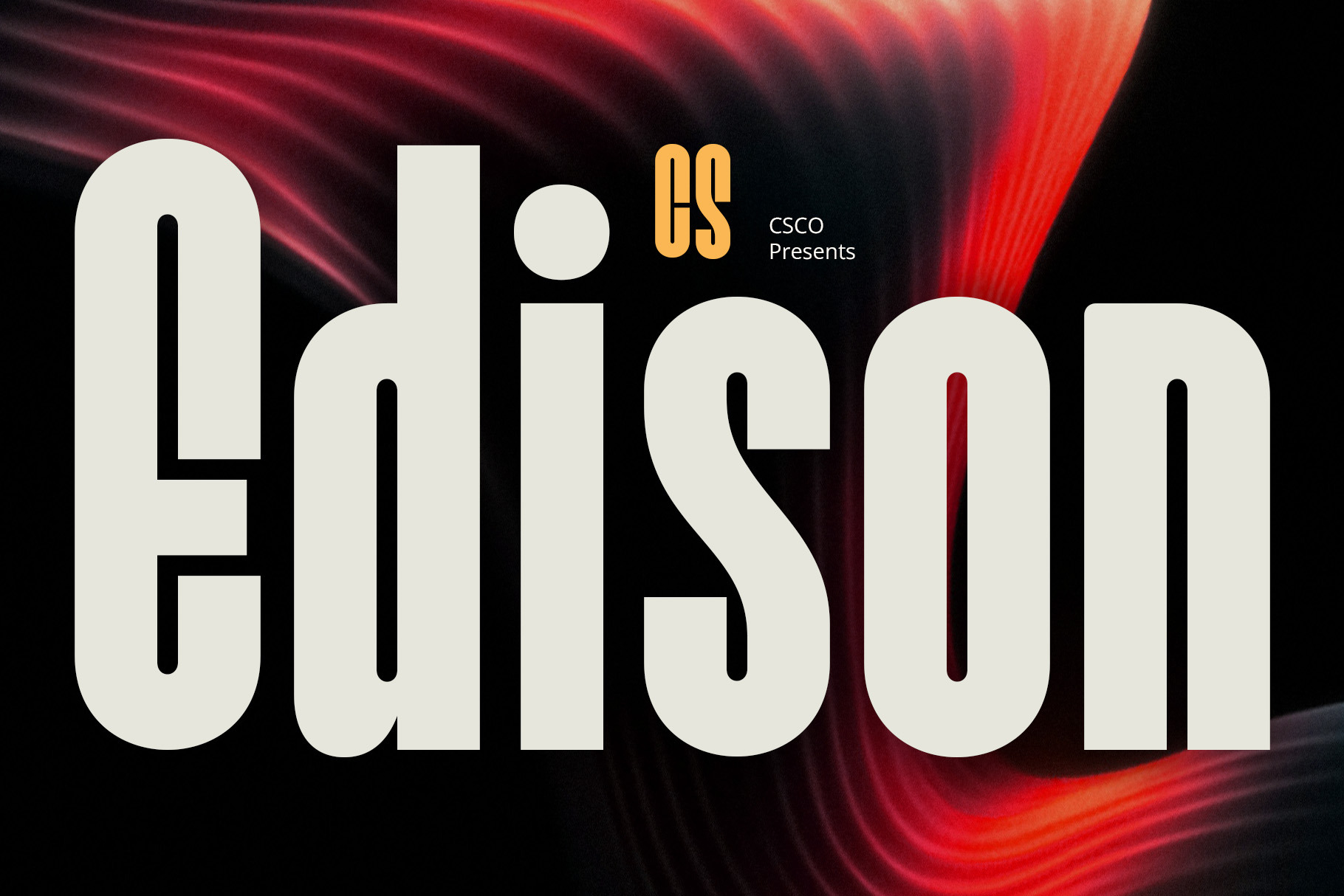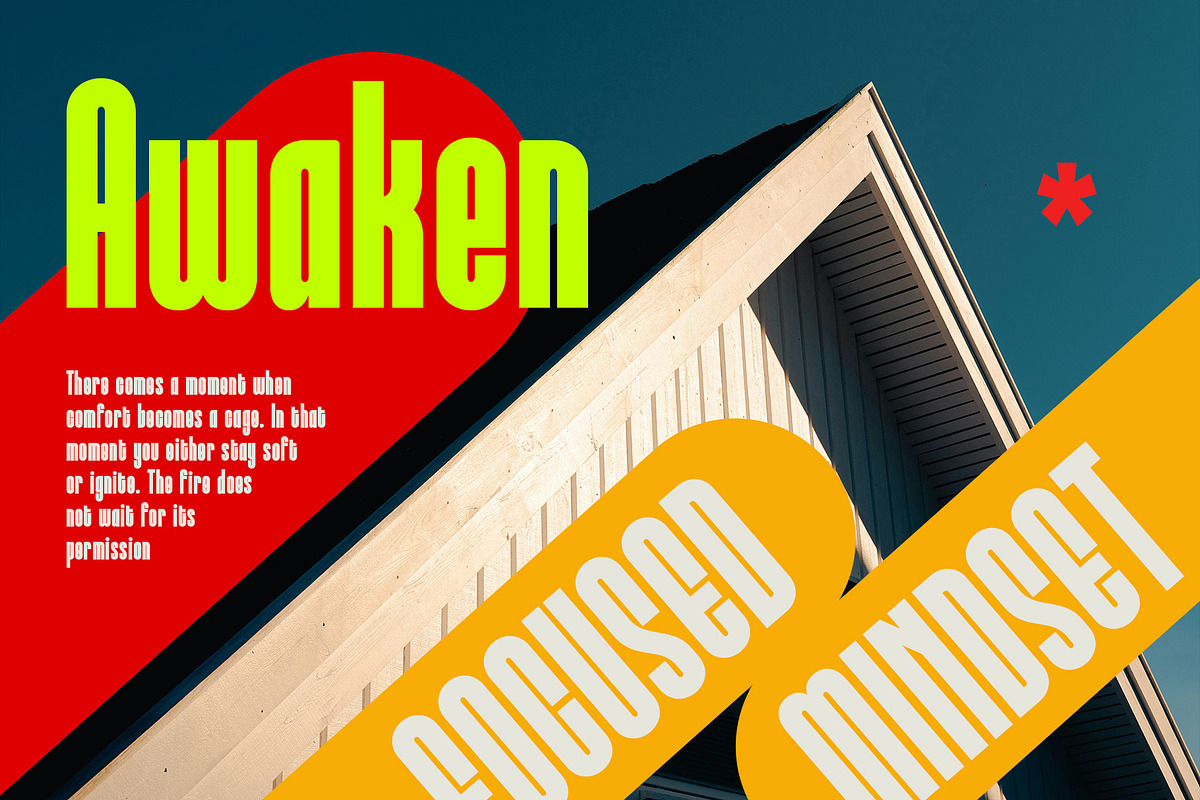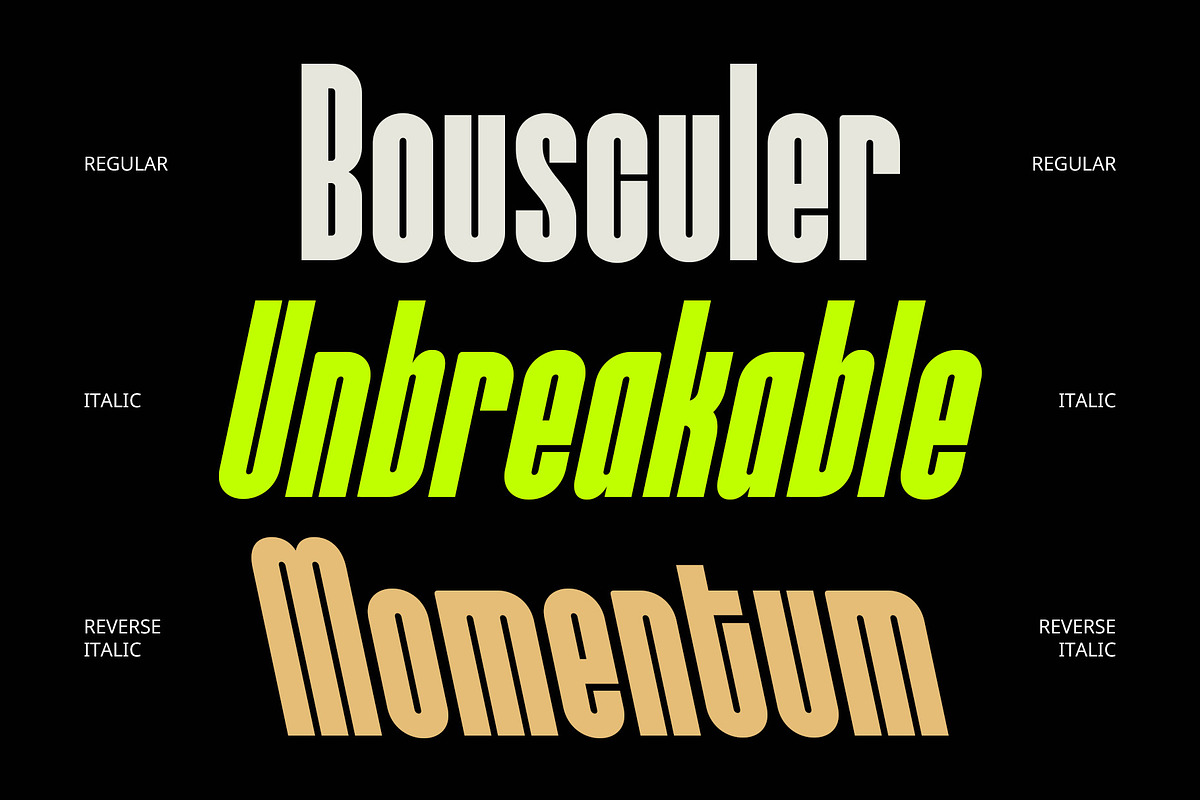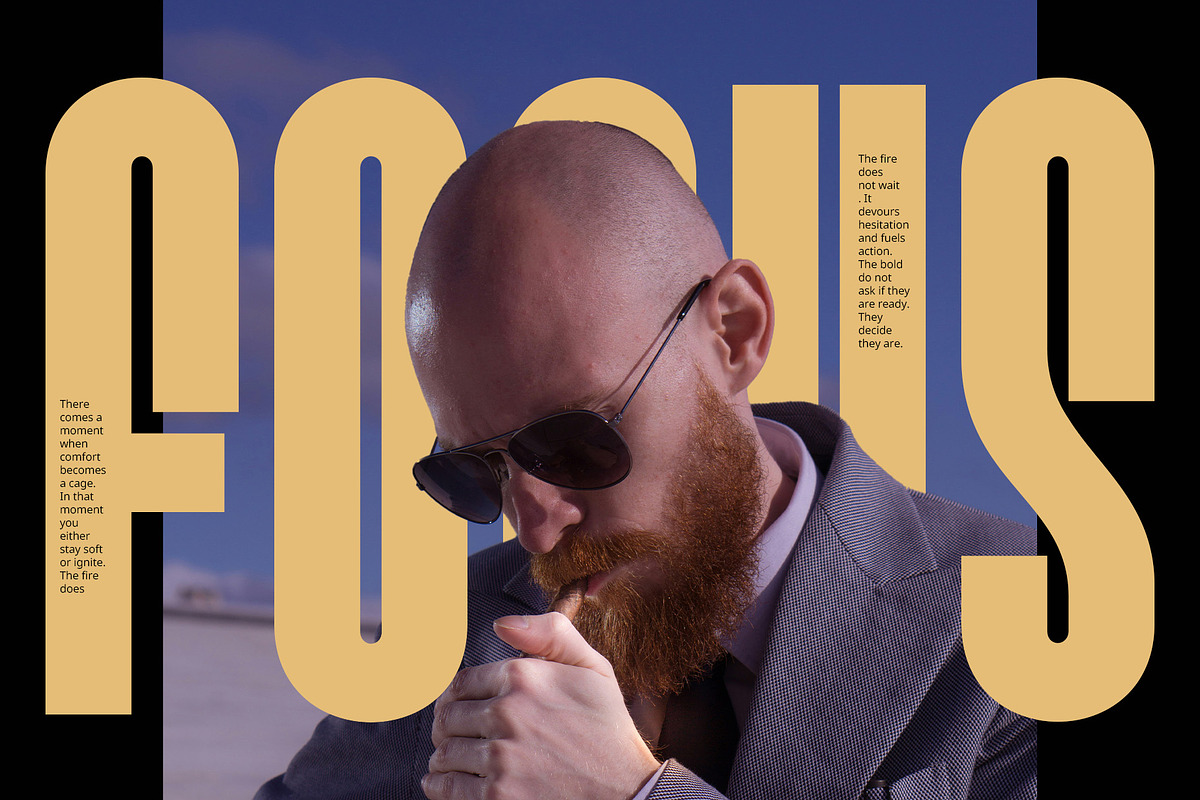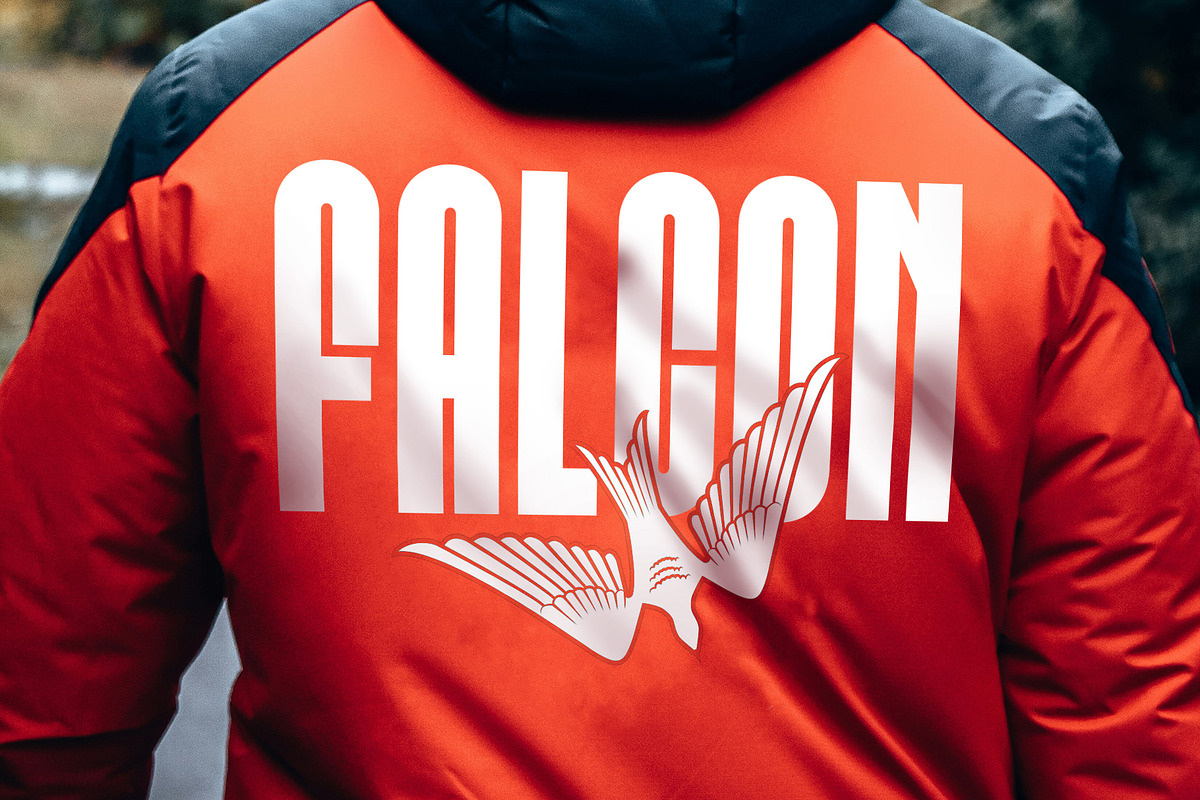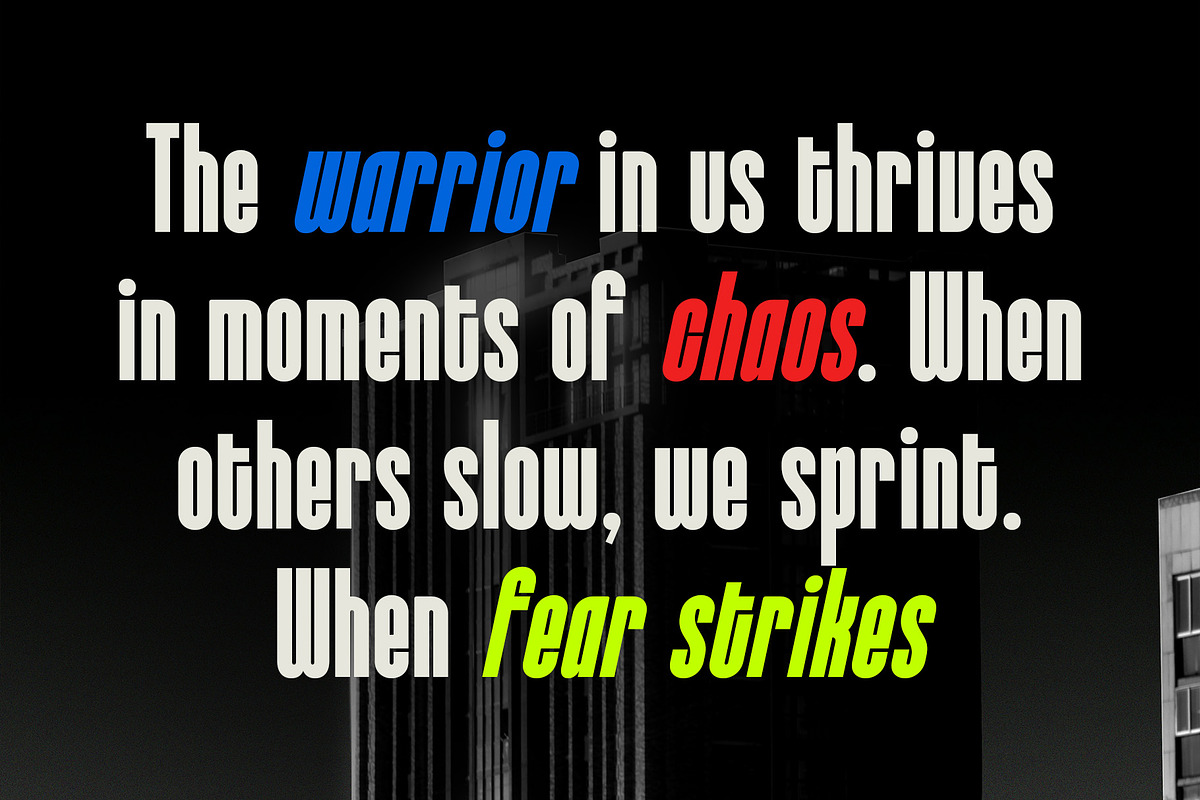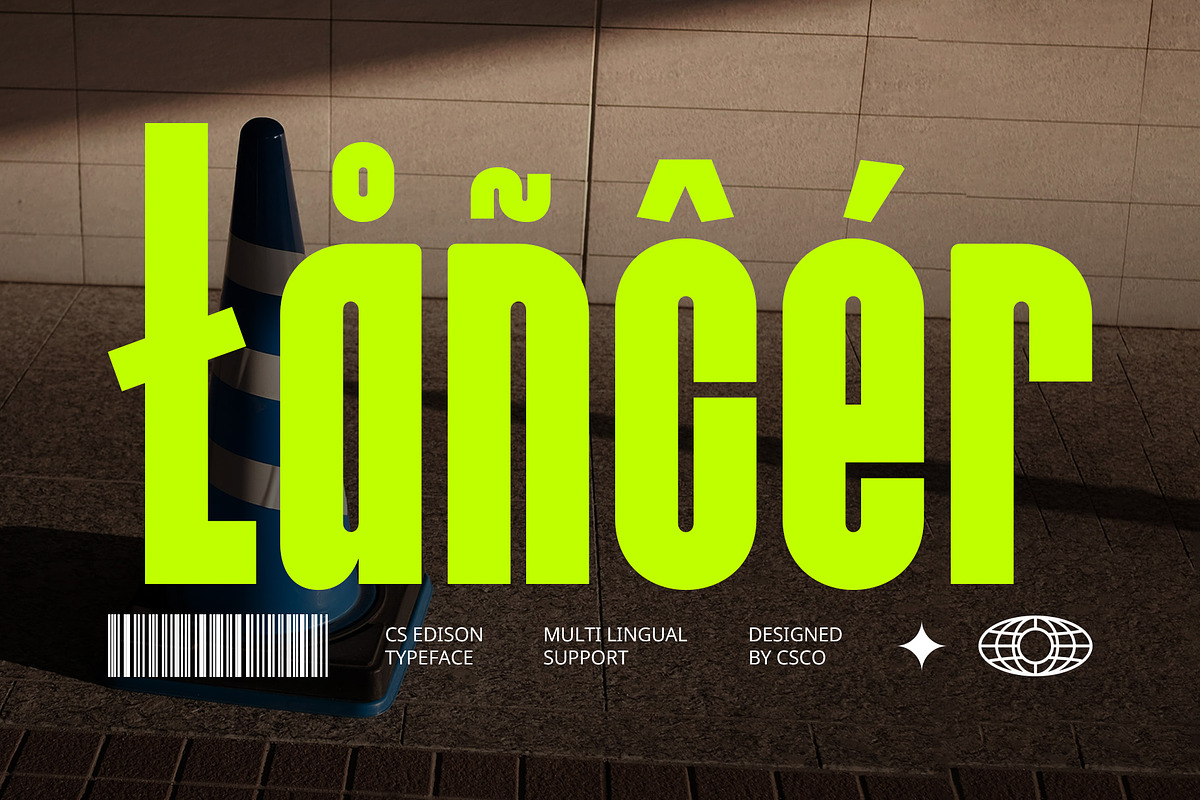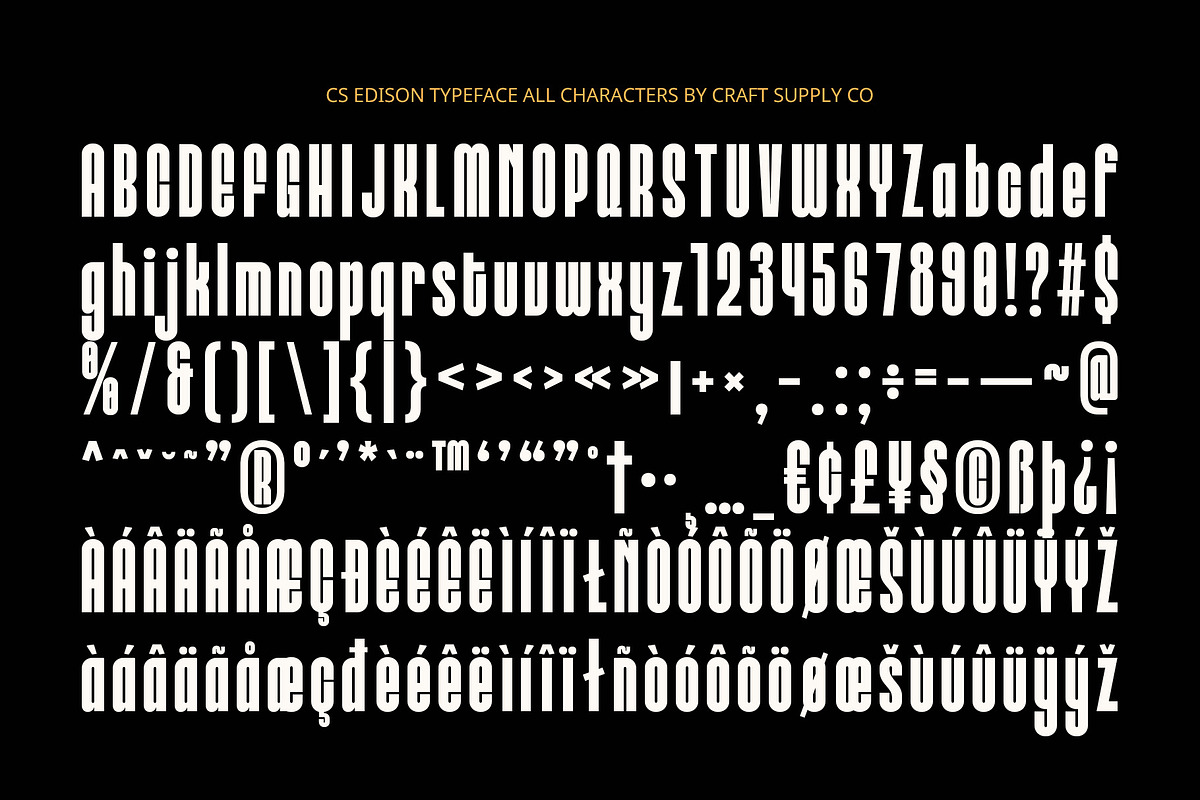
CS Edison – Bold Font
CS Edison – Bold Font: Where Strength Meets Style
Classic Modern Style with a Bold Edge CS Edison is a bold sans serif font that merges the timeless clarity of modern design with classic elegance. Its clean, geometric structure is enhanced by strong vertical emphasis, giving it a confident and contemporary feel. The result is a font that stands out with professionalism while still exuding style.
Condensed Form for Visual Impact Designed with a condensed structure, CS Edison maximizes space efficiency while maintaining legibility and visual power. This makes it ideal for headlines, posters, branding, and social media layouts where strong presence and clean alignment matter most.
Stylish and Versatile Aesthetic The refined balance between boldness and simplicity gives CS Edison a unique visual voice. It’s fashionable without being flashy, making it suitable for a variety of uses—from corporate branding to editorial headlines and digital graphics.
Perfect for Striking, Character-Driven Design Whether you’re creating sleek packaging, bold marketing materials, or eye-catching digital content, CS Edison provides the strength, clarity, and personality to bring your message to life. It’s the go-to choice for designers seeking a typeface that is both strong and stylish.